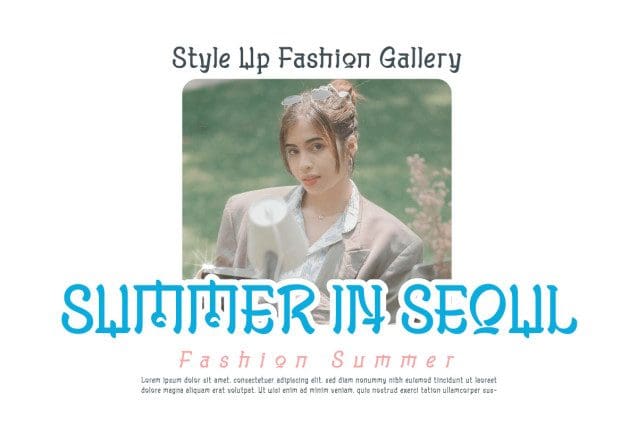
Molyan Korean Font
Molyan Korean Font is a font that invites you into the traditional beauty of Asia. With a graceful touch and distinctive character, each character exudes the warmth of Korean culture. Suitable for a variety of design projects, from branding to special events, Molyan makes an unforgettable impression. Bring a charming Korean aura to your work with Molyan, a font that transports you across time and culture.